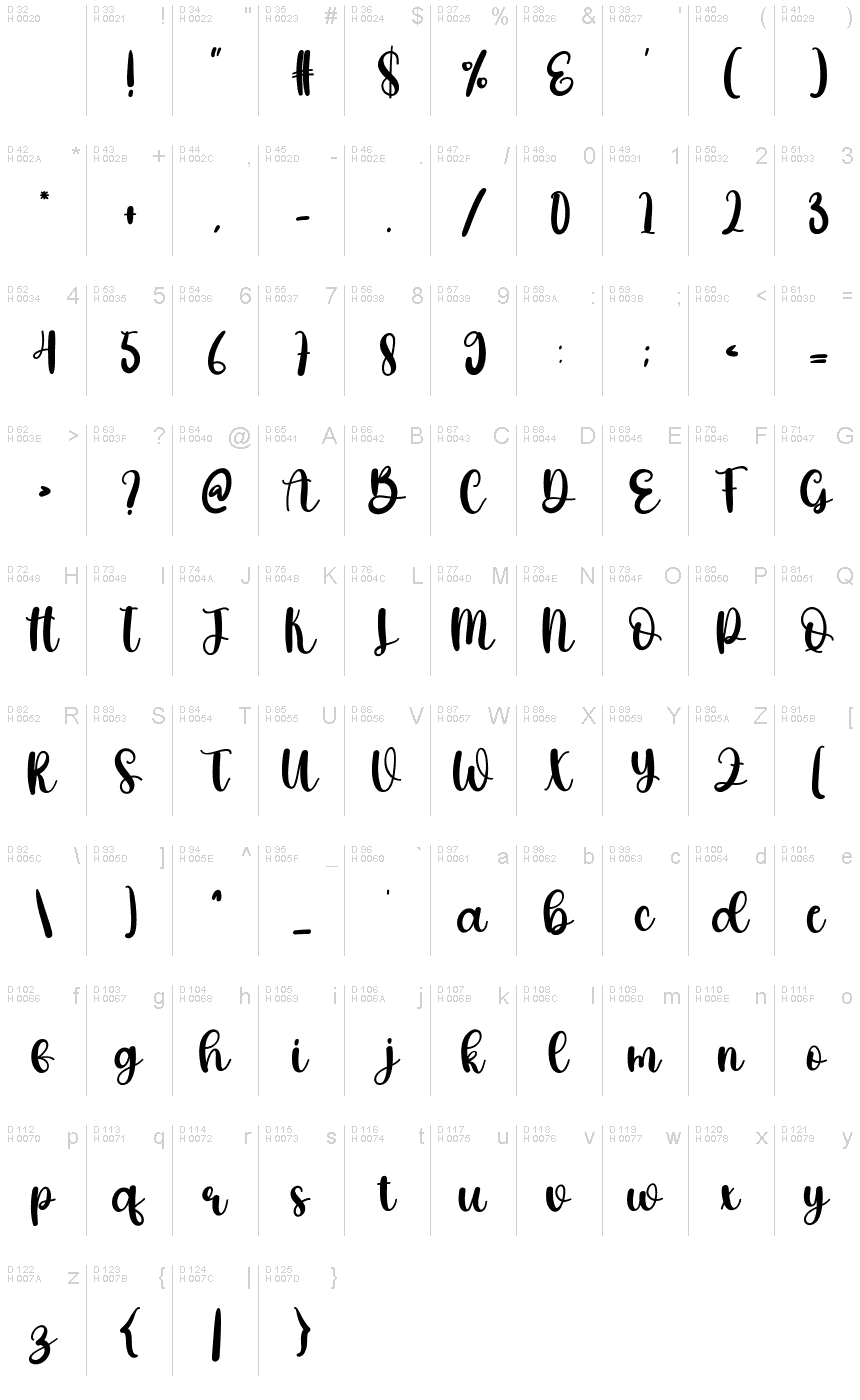
Handheld
Looking for a font that adds a touch of personality to your project? Look no further than Handheld, the semi-bold handwritten typeface designed by scratchones. With its informal style and unique character, this font is perfect for a wide range of projects, from greeting cards and invitations to posters and advertising campaigns. Whether you want to add a playful touch to your design or create a more intimate feel, Handheld is the perfect choice. So why wait? Try out this versatile font today and see the difference it can make!
the latest style letters are perfect for wall displays, wedding invitations, social media post logos, advertisements, product packaging, product designs, labels, photography, watermarks, invitations, stationery, and any project that requires taste handwriting.